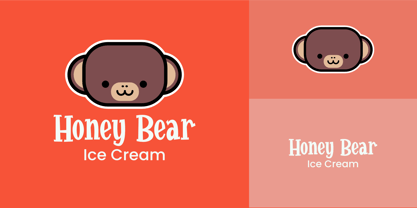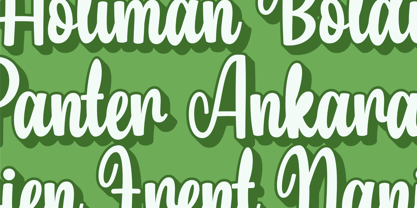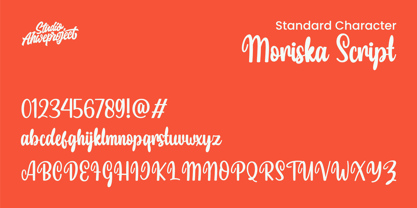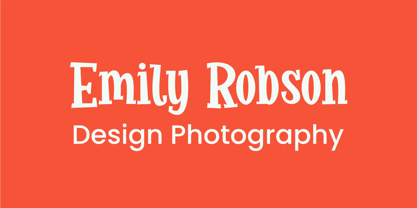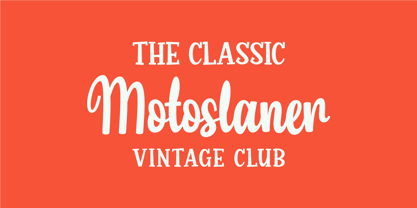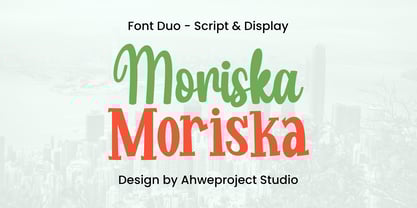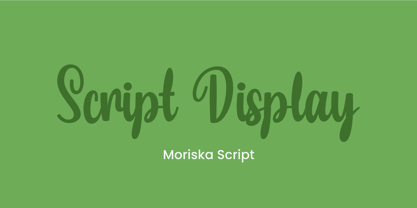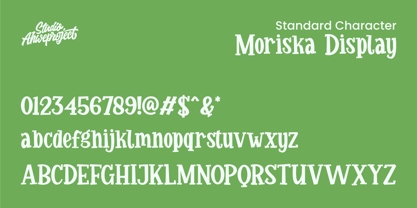
Moriska
The Moriska Font Family was designed by Dida Ahluddin and published by ahweproject. Moriska contains 4 styles and family package options. More about this family
Moriska is a unique blend of warm, handwritten touches and timeless modern aesthetics. Its flowing script font offers an authentic character, while the bold display font exudes a fresh vintage vibe. Perfect for a variety of designs, from eye-catching posters to elegant product packaging.